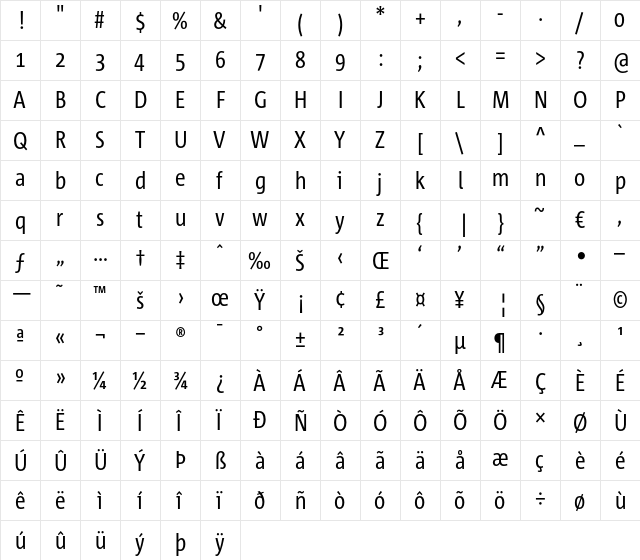
Corpid Cd Regular
Design Context for Corpid Cd Typeface
Corpid Cd is a composed and adaptable typeface that performs quietly and consistently across a wide range of design contexts.